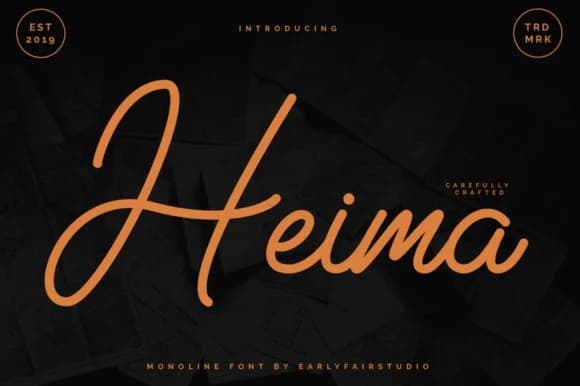
The flowing strokes of Heima Font, designed by Earlyfair Studio, capture that comfortable, casual rhythm of natural handwriting without feeling stiff or overthought. Each letter moves with a kind of gentle spontaneity that reads as genuine rather than artificially polished. This particular quality makes it surprisingly versatile: the script works equally well at large display sizes and smaller text settings, adapting to different contexts without losing its character.
This font shines for wedding invitation suites, personalized stationery sets, and indie craft labels where authenticity and warmth matter. Hand-lettered branding projects, menu cards for restaurants or events, and scrapbooking layouts all benefit from Heima's approachable, sophisticated sensibility. Even when you're designing something as specific as boutique packaging or custom greeting cards, the letterforms have enough personality to stand out while remaining legible. The script balances visual interest with readability, so you're not trading one for the other.
Heima Font is a script font that shines as a display or heading face. Pair it with a clean sans-serif or serif font for body text β the contrast creates a clear hierarchy while the two styles stay balanced and easy to read.